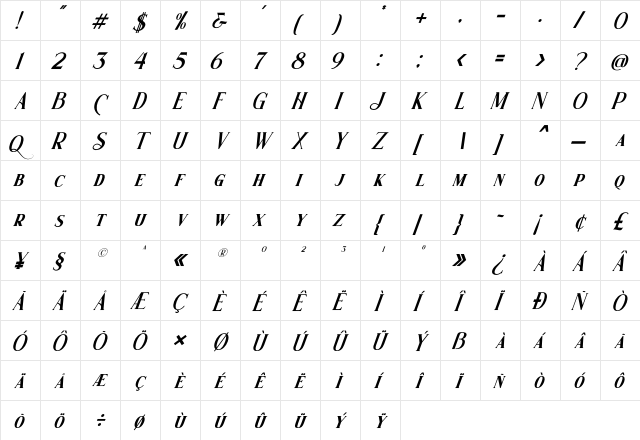
Wishleman Italic Regular
Design Context for Wishleman Italic Typeface
Wishleman Italic takes a measured approach to typography — its balanced proportions and neutral character make it a reliable workhorse for both digital and print work. The slanted form adds forward momentum and visual energy.
Pro Tip: Try Wishleman Italic for annotation and caption copy alongside an upright companion — the contrast in angle creates a dynamic but ordered typographic system.